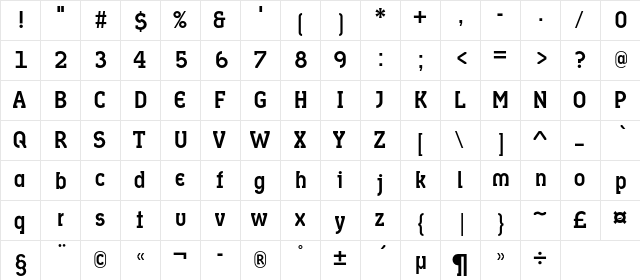
GvardiaMediumC Regular
Design Context for GvardiaMediumC Typeface
GvardiaMediumC is a composed and adaptable typeface that performs quietly and consistently across a wide range of design contexts.